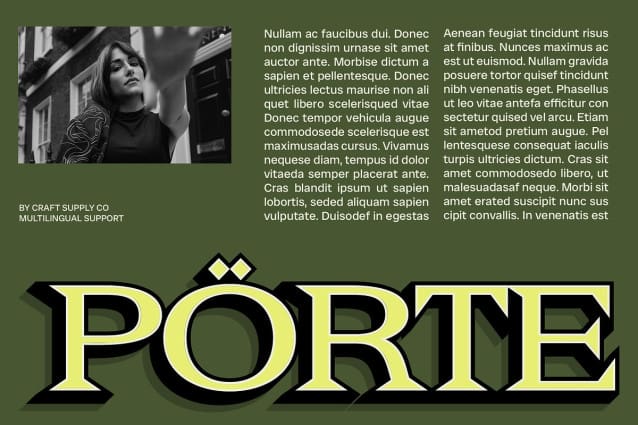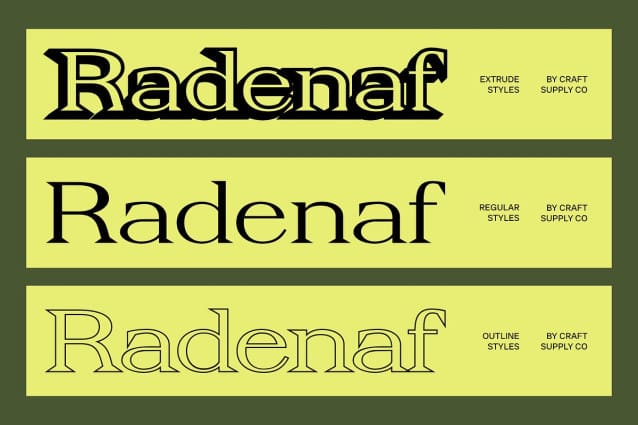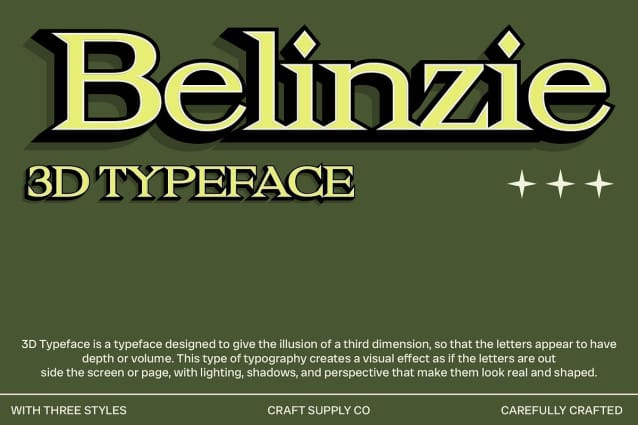
Belinzie 3D Font
Belinzie 3D Font is a modern serif font that exudes sophistication with its wide letterforms, offering a sense of stability and luxury. The generous space within each character adds grace and refinement, making it ideal for designs that require a professional and elegant appearance.
Dynamic 3D Effect for Visual Depth The standout 3D effect elevates Belinzie 3D by adding depth and dimension to its classic serif structure. This visual enhancement creates a striking, dynamic look that brings the font to life, making it perfect for high-impact designs that aim to leave a lasting impression.
Blending Classic Elegance with Contemporary Flair The wide shapes and 3D effect combine to form a harmonious balance between timeless elegance and modern design. Belinzie 3D offers a premium aesthetic that is both bold and sophisticated, making it a great choice for projects that seek to merge tradition with innovation.
Ideal for Premium Logos, Branding, and Posters Belinzie 3D is perfectly suited for luxury branding, eye-catching logos, and high-end posters. Its wide, elegant shapes combined with the dimensional 3D effect ensure your designs stand out, adding a touch of opulence and modernity to any project.